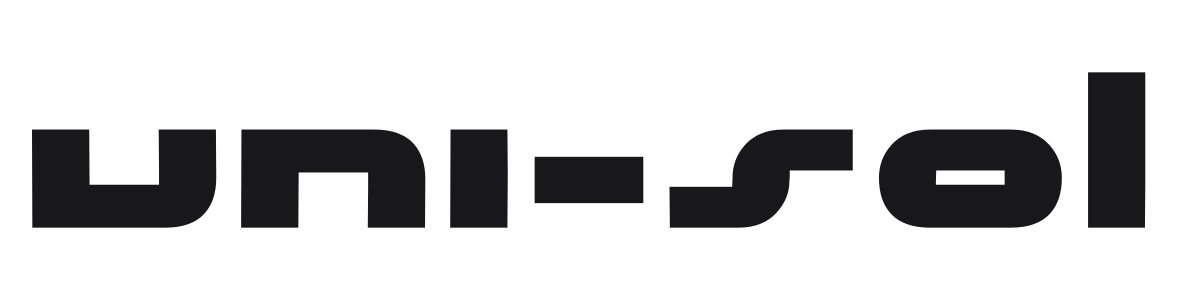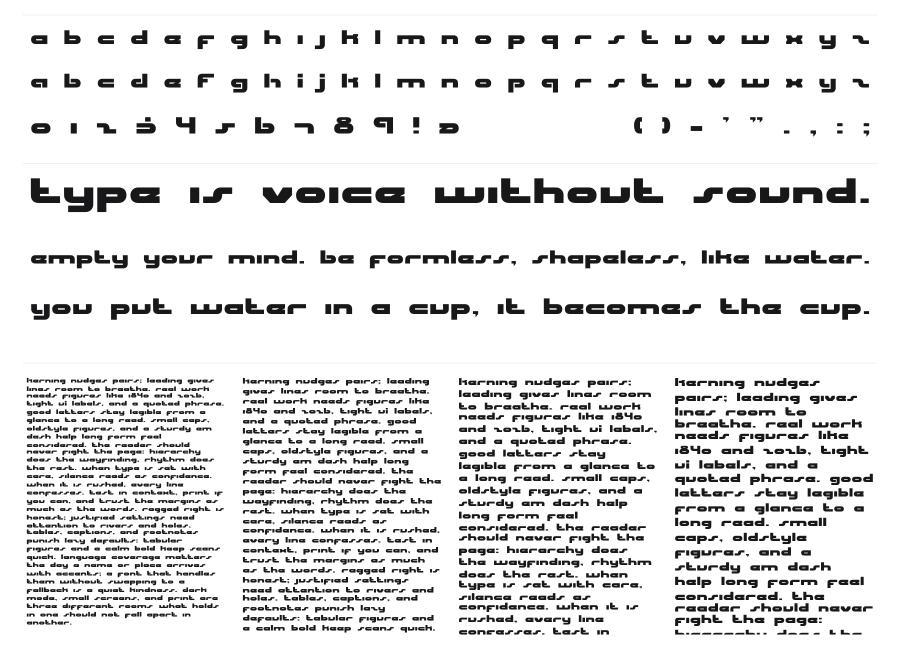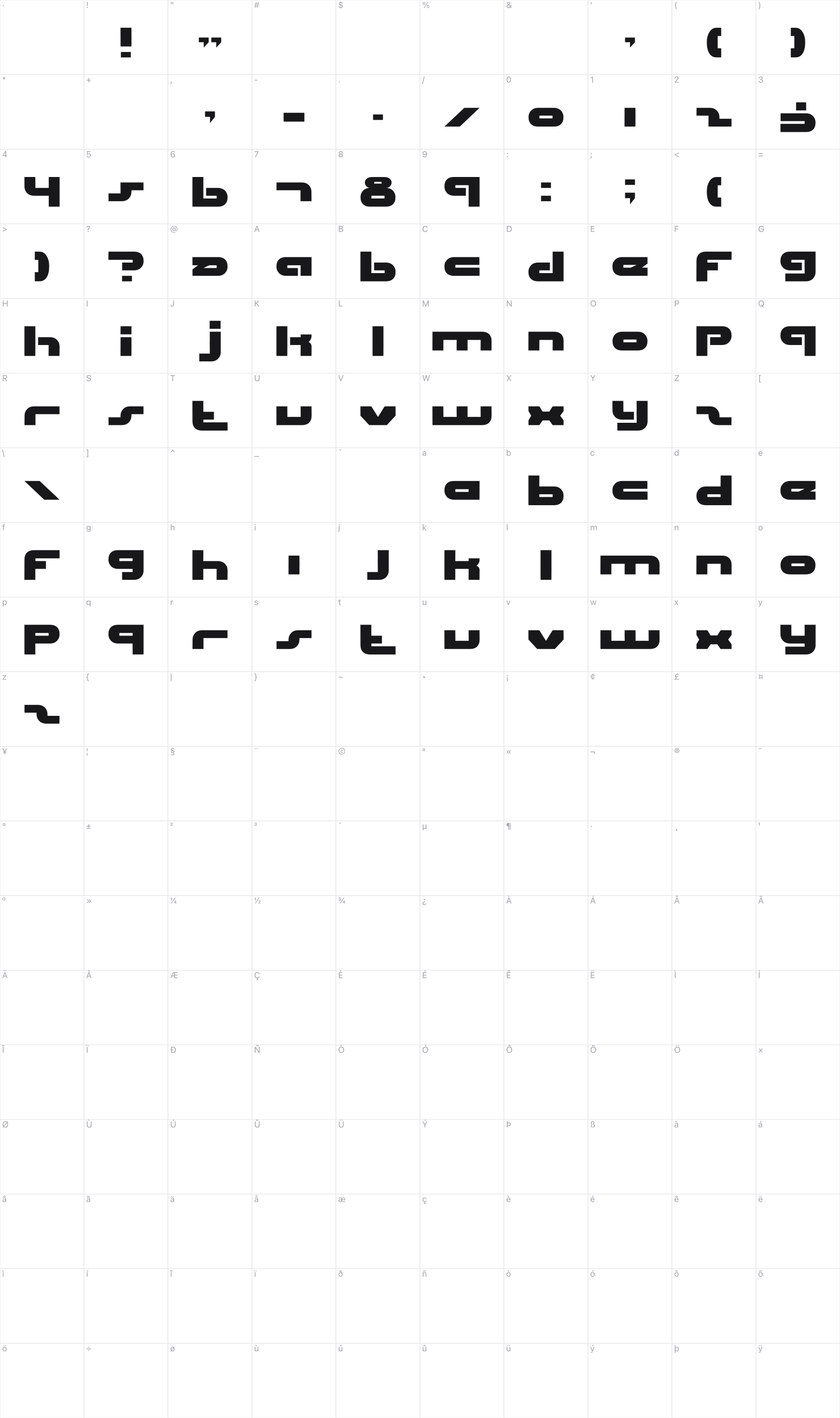
Uni-Sol
Uni-Sol is a heavy geometric techno face by Iconian Fonts with thick uniform strokes and distinctive rounded notches cut into each character. The result is a blocky, modular look that reads as futuristic and forceful at large sizes. Created in 1999, it carries the confident sci-fi energy of late-90s game and film design.